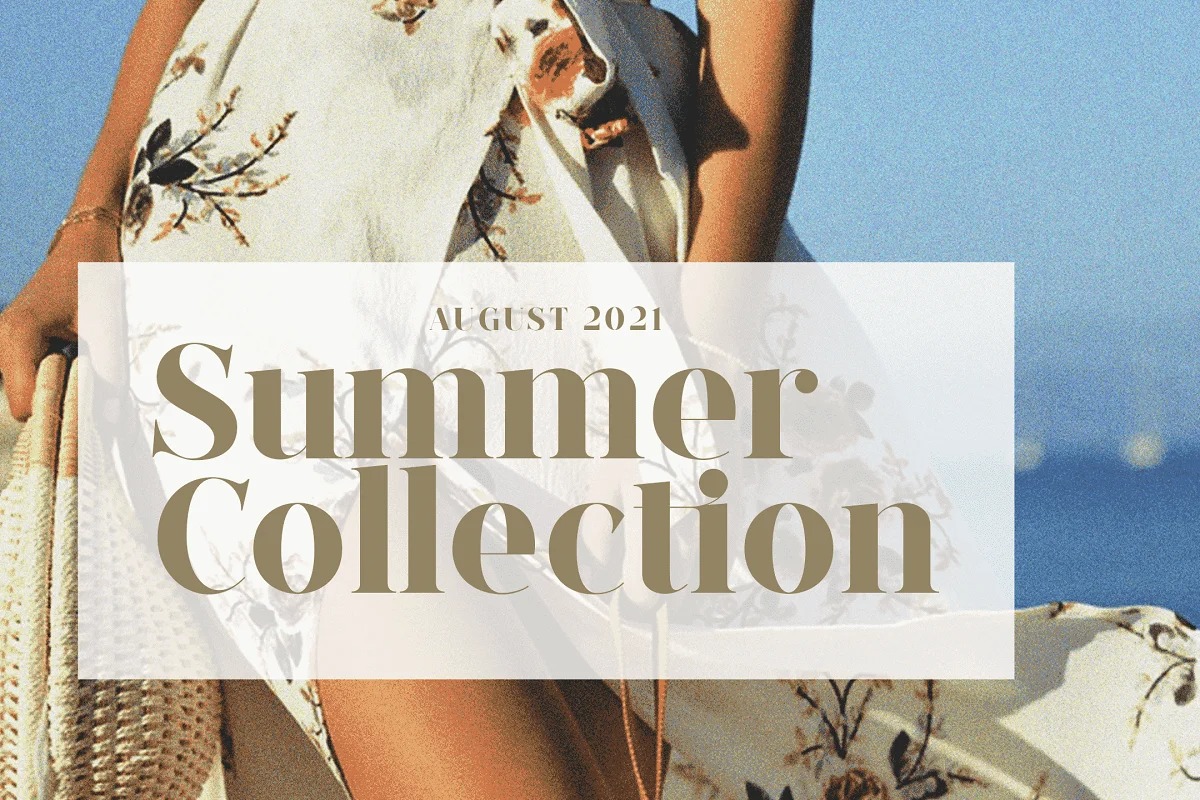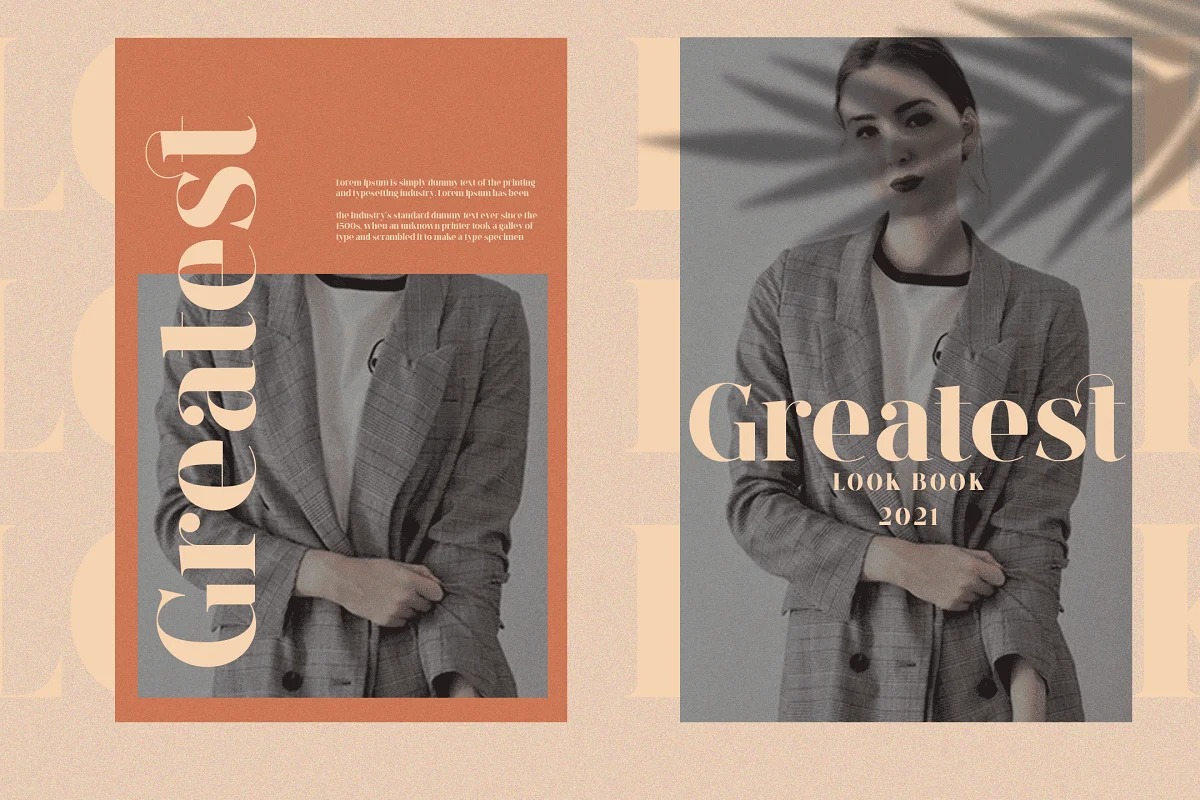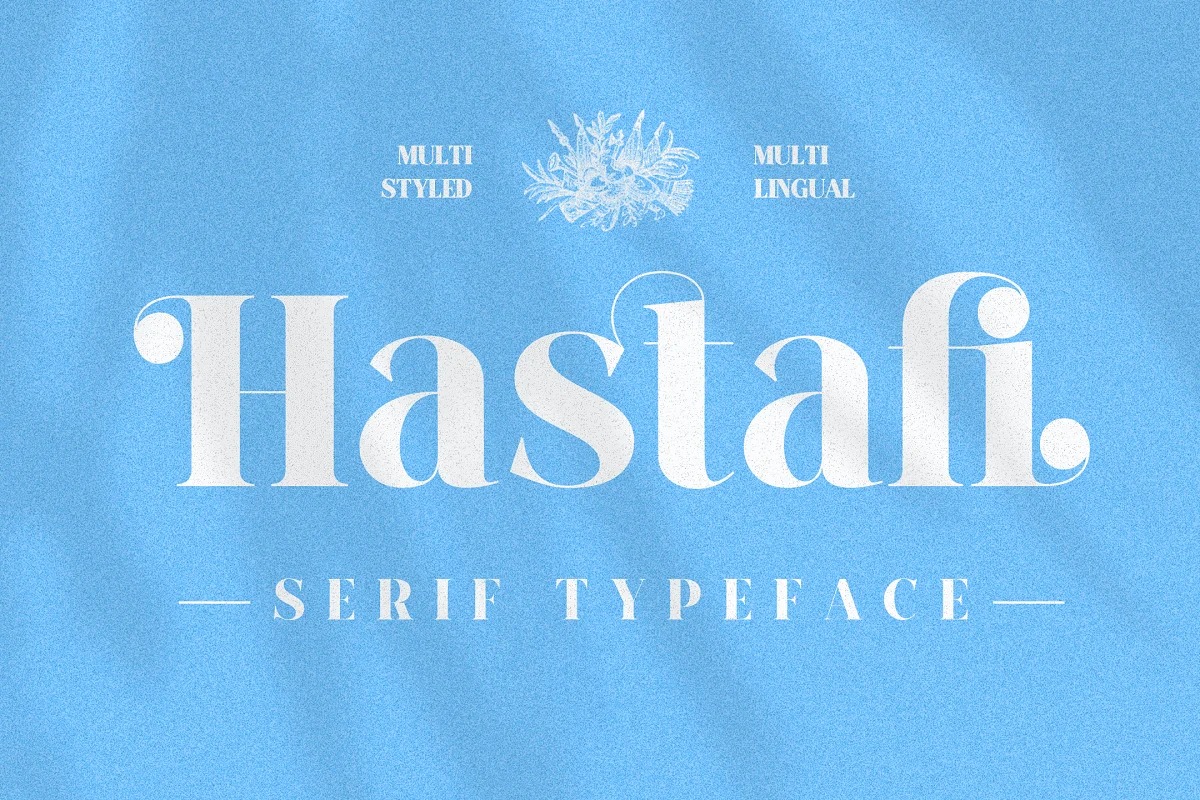
Hastafi Font
Hastafi Serif Font
This font is inspired by Classic typography and now come with modern serif nuance. Use it for any project that needs that extra bit of elegance and personality, without losing the thoughtfulness and authenticity of a serious serif font.
The Hastafi family consists of eight beautiful styles: The Regular, for a medium and normal variety, and the flowing Italic version. It also contains a swash style for decorative additions to the letters, and each of the styles as an emphasized Bold.
The font is built with advanced OpenType functionality and has a guaranteed top-notch quality, containing stylistic and contextual alternates, ligatures and more features; all to give you full control and customizability. It has extensive lingual support, covering all Latin-based languages, from North Europe to South Africa, from America to South-East Asia. It contains all characters and symbols you’ll ever need, including all punctuation and numbers.